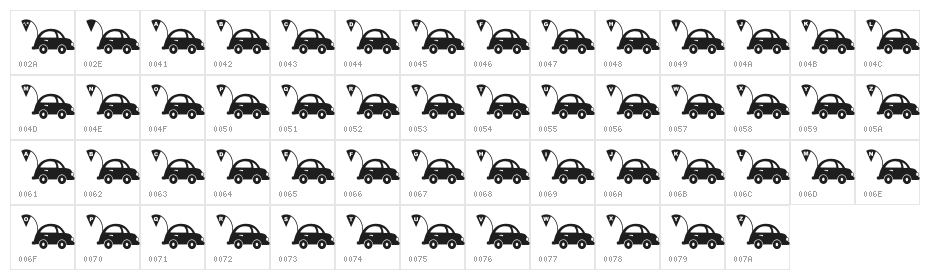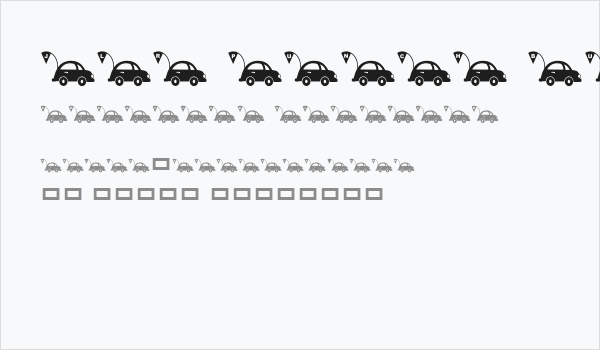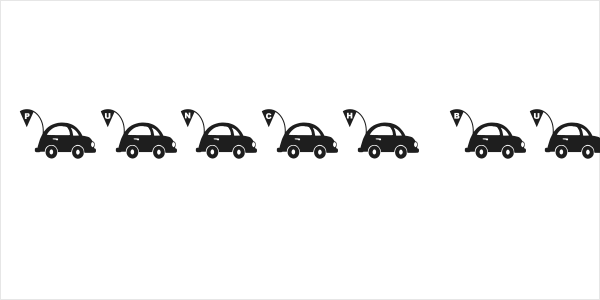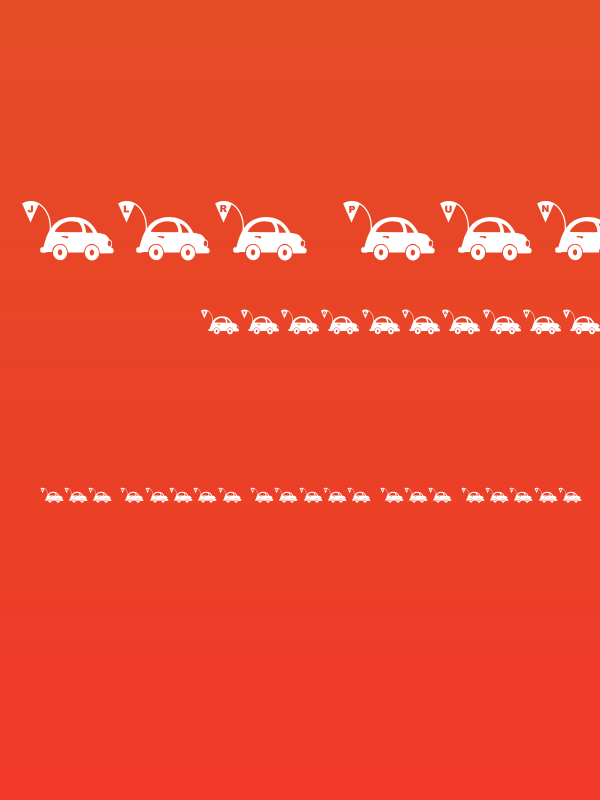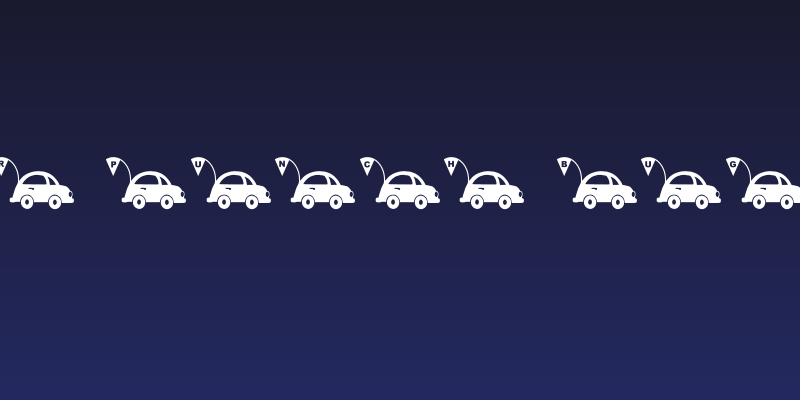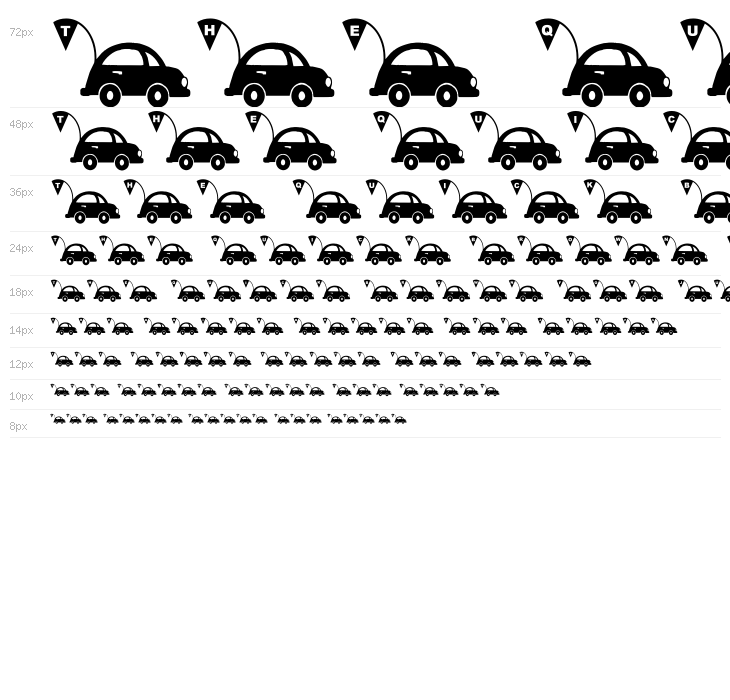
JLR Punch Buggy Font
JLR Punch Buggy Description
| Overall Style | Playful, Decorative |
| Use Case | Borders, Decorative elements, Themed graphics |
| Proposed Projects | Children's party invitations, automotive-themed flyers, playful borders, scrapbooking, educational materials. |